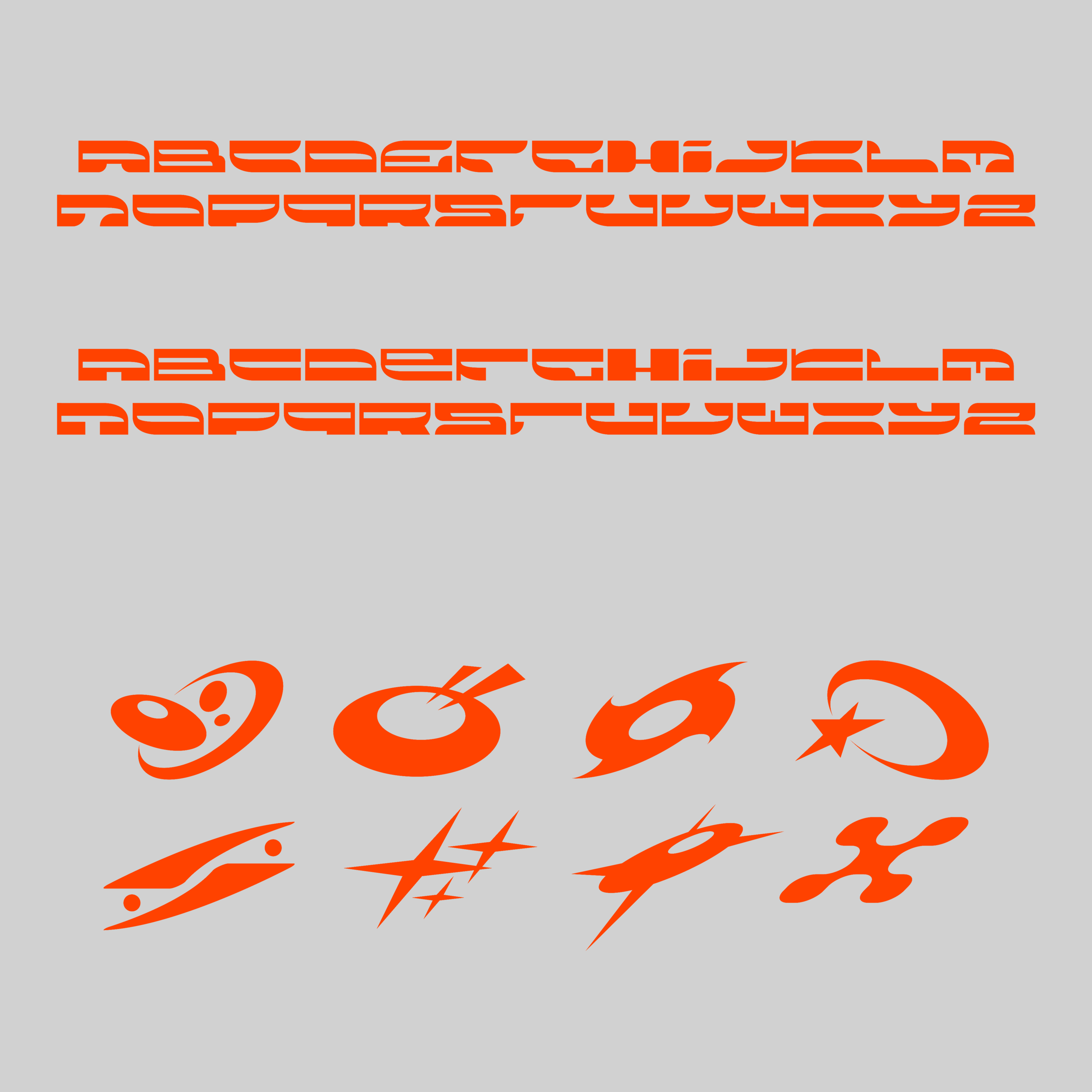
Zynk Typeface
Zynk Mini-Typeface inspired by industrial y2k graphic styles.
Includes A-Z (2 styles) + 8 bonus vectors
*does not include numbers or symbols*